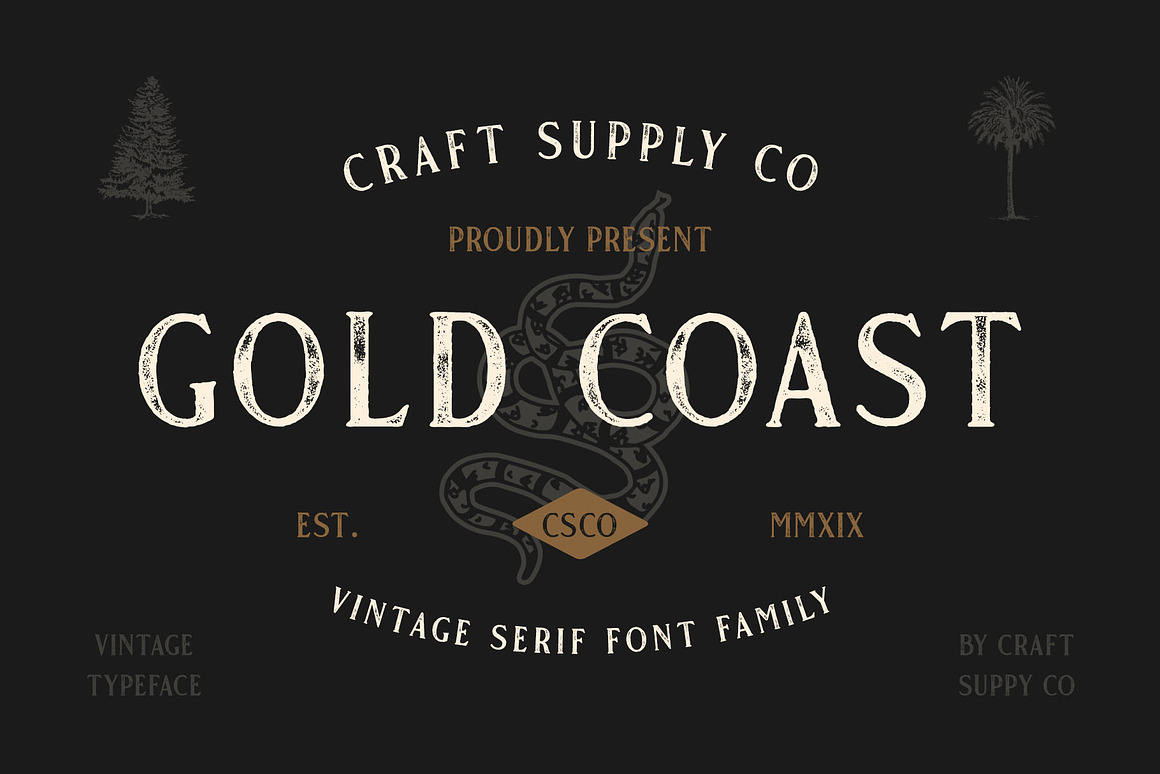
Gold Coast - Vintage Serif + Extras
Gold Coast Vintage Serif Font Family is perfect for luxury resort branding, vintage hotel signage, elegant editorial layouts, premium wine labels, sophisticated restaurant menus, upscale fashion campaigns, heritage brand communications, and classic advertising materials. This distinguished typeface collection works beautifully in both digital applications and print media where timeless sophistication and coastal elegance are desired.
What makes Gold Coast Vintage Serif Font Family so exciting is its perfect capture of mid-century coastal luxury with refined serif letterforms that evoke the golden era of American resort culture. The font features elegant curves, sophisticated proportions, and vintage-inspired details that instantly transport viewers to exclusive seaside destinations and glamorous vacation experiences. Its luxurious character and nostalgic charm make it ideal for brands seeking to communicate premium quality, relaxation, and aspirational lifestyle while maintaining contemporary appeal and readability.
The Gold Coast Vintage Serif Font Family includes comprehensive weight variations from light to bold, along with italic styles, condensed versions, and decorative alternates. Each style maintains the typeface's coastal elegance while offering extensive language support, classic numerals, refined punctuation, and special characters designed to enhance luxury brand communications across diverse markets.
This remarkable typeface collection represents the perfect marriage of vintage American luxury and modern typographic excellence. Whether you're developing resort brand identities, creating premium hospitality materials, or designing aspirational lifestyle campaigns, Gold Coast Vintage Serif Font Family Free Download delivers the sophisticated elegance and versatility needed to attract discerning audiences. The font's coastal heritage makes it particularly effective for luxury resorts, premium real estate, fine dining establishments, and lifestyle brands celebrating relaxed sophistication.
The carefully balanced proportions and refined details in Gold Coast Vintage Serif Font Family ensure exceptional performance across all media while maintaining its distinctive vintage character. Its versatile nature allows seamless transitions from elegant headlines to readable body text, making it an invaluable tool for designers creating cohesive luxury brand experiences that resonate with affluent consumers.